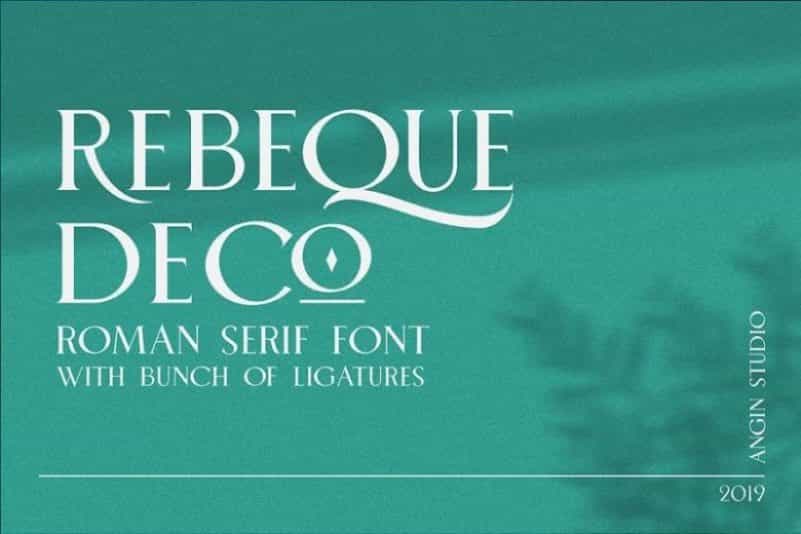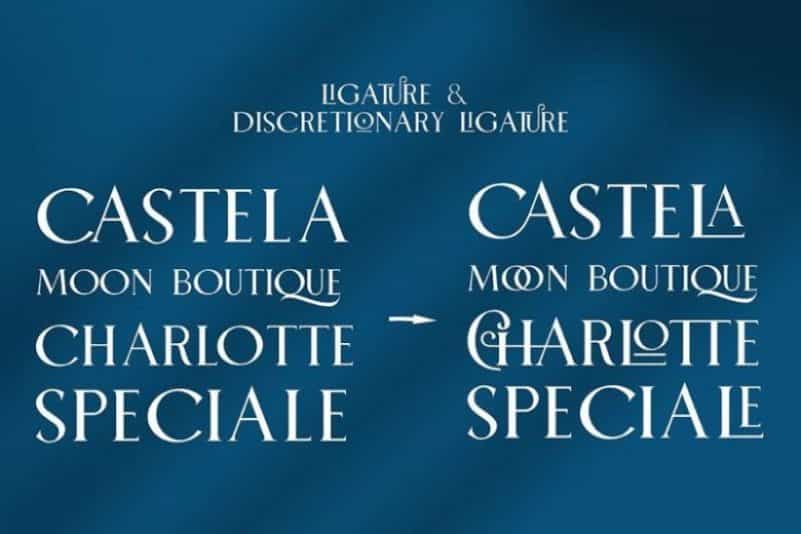
Rebeque Deco Font is a beautiful serif font. This typeface comes with many alternates with swashes, which helps to make your lettering / logotype more unique and interesting. It is designed using roman serif typeface with some hint of art deco style.